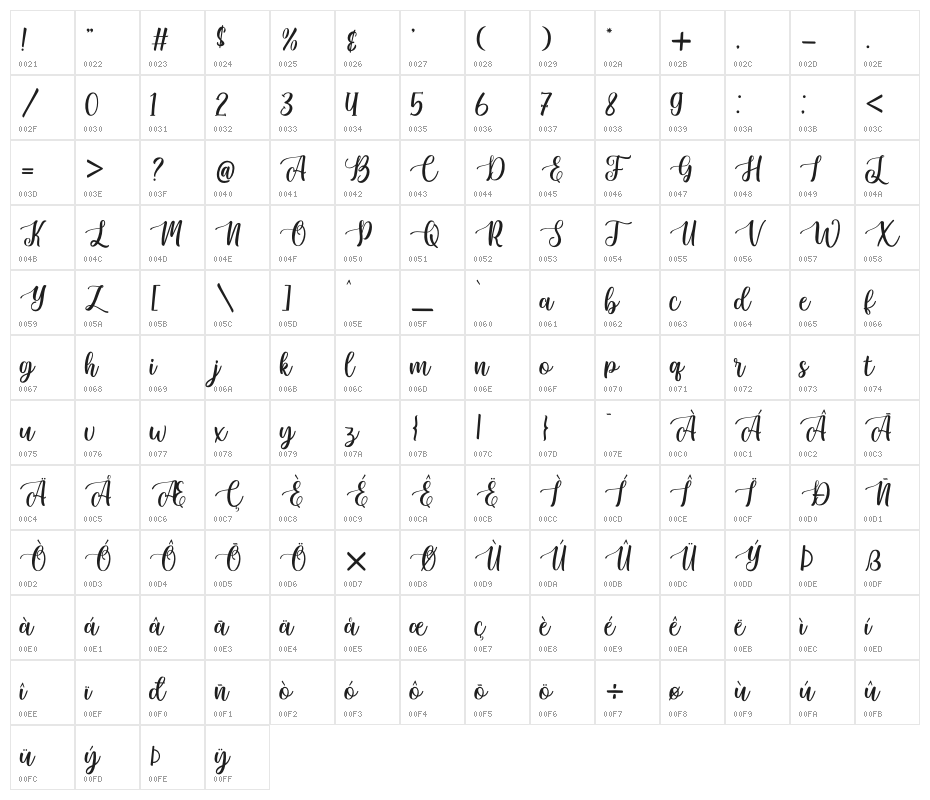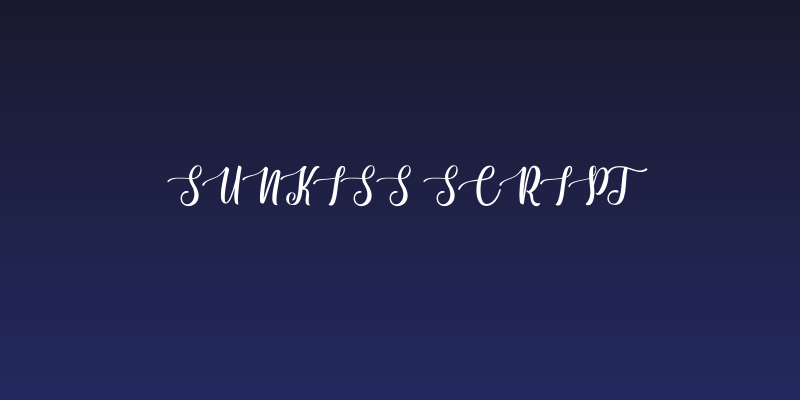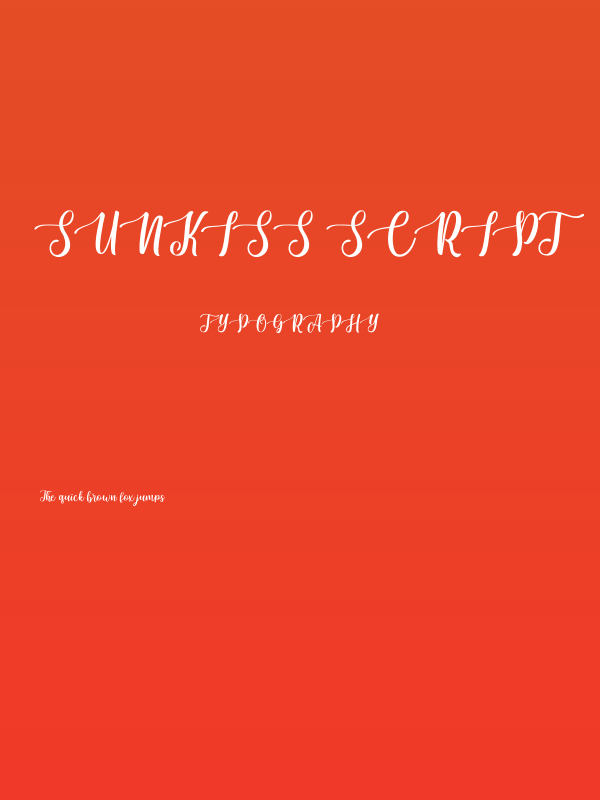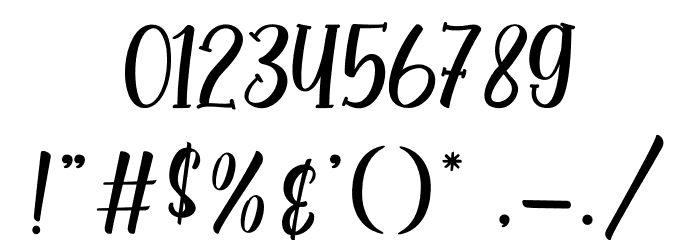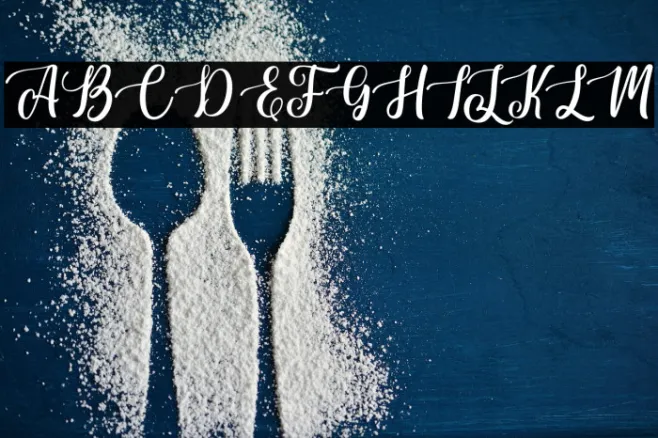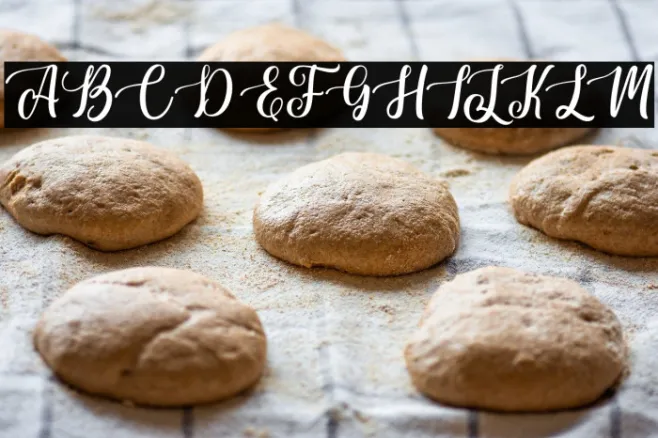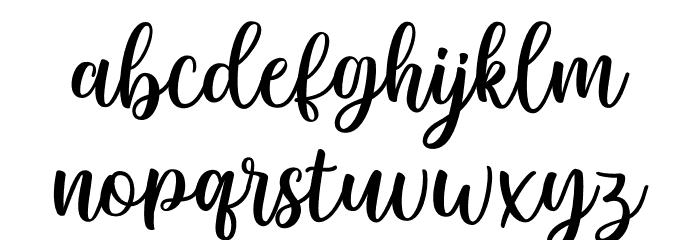
Sunkiss Script Font
Sunkiss Script Description
This elegant script font features flowing, interconnected letters that exude a sense of grace and sophistication. The uppercase characters are ornate, with sweeping curves and loops that add a touch of flair, while the lowercase letters maintain a consistent, smooth flow. The numerals are stylish yet readable, complementing the overall design. Special characters are thoughtfully crafted to match the font's aesthetic, making it versatile for various uses. The font's playful yet refined style makes it suitable for creative projects that require a personal touch.